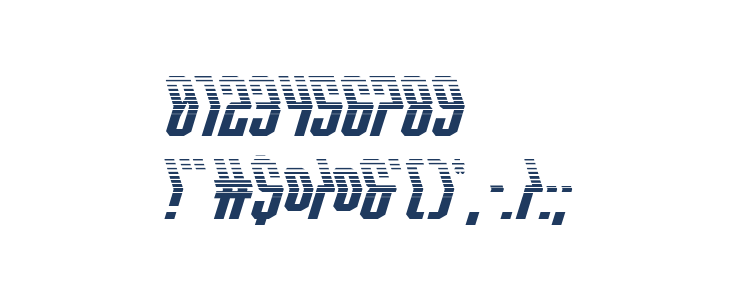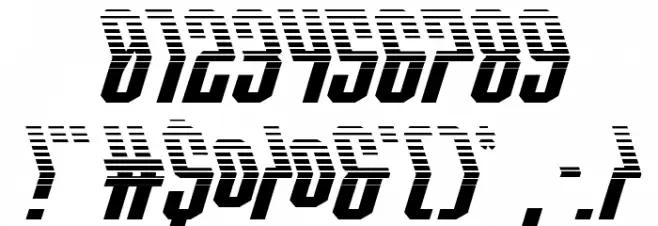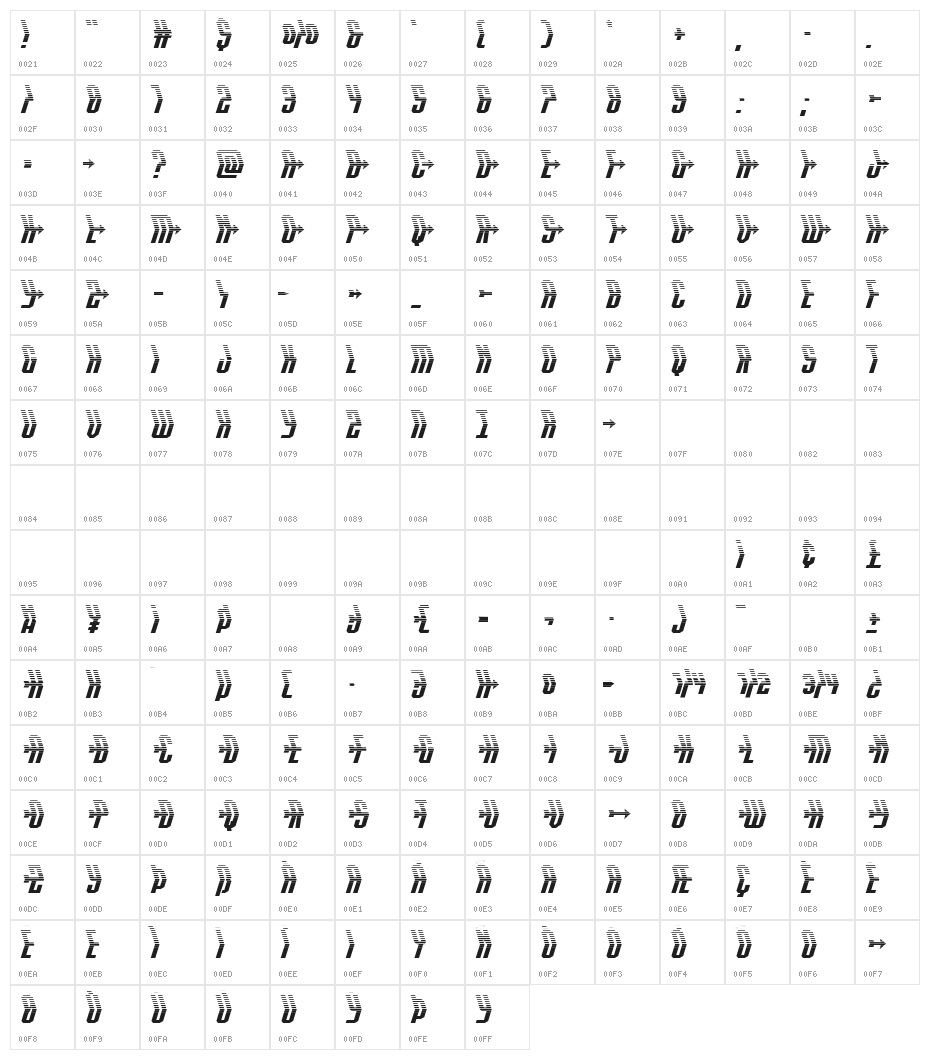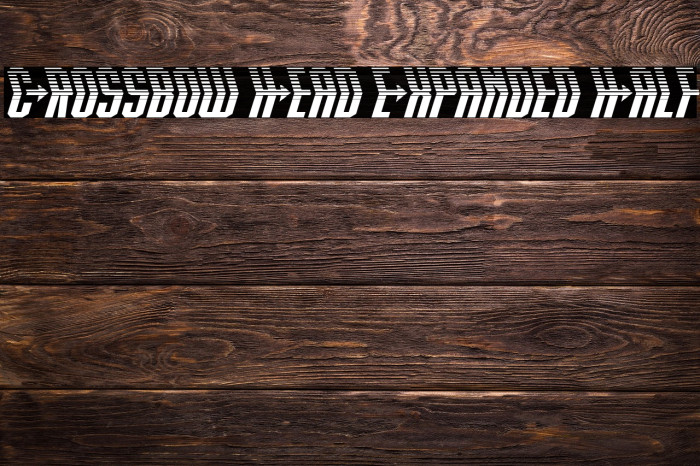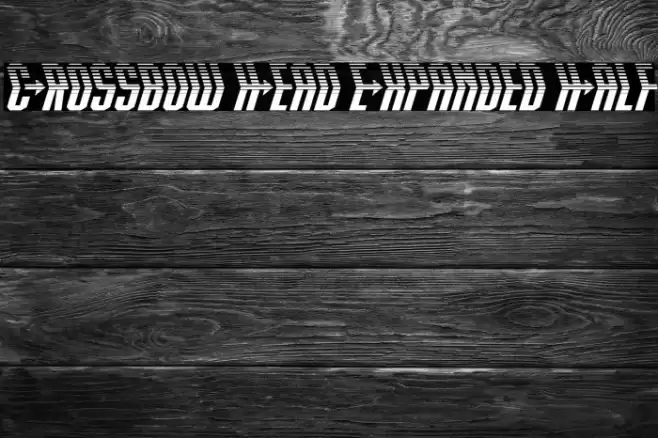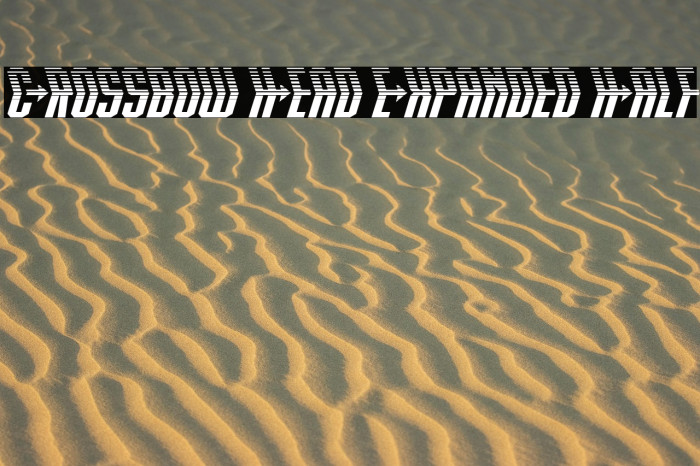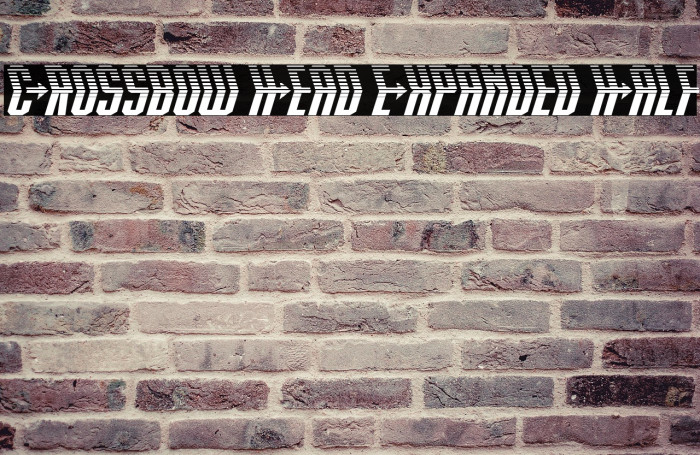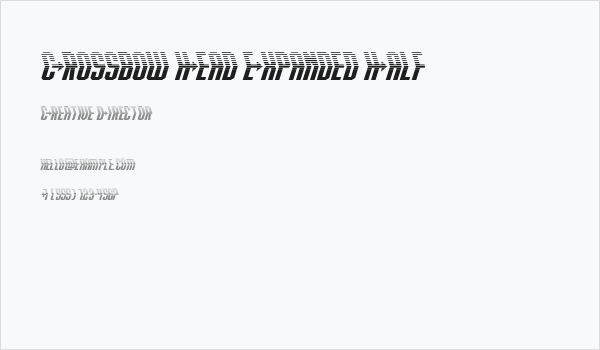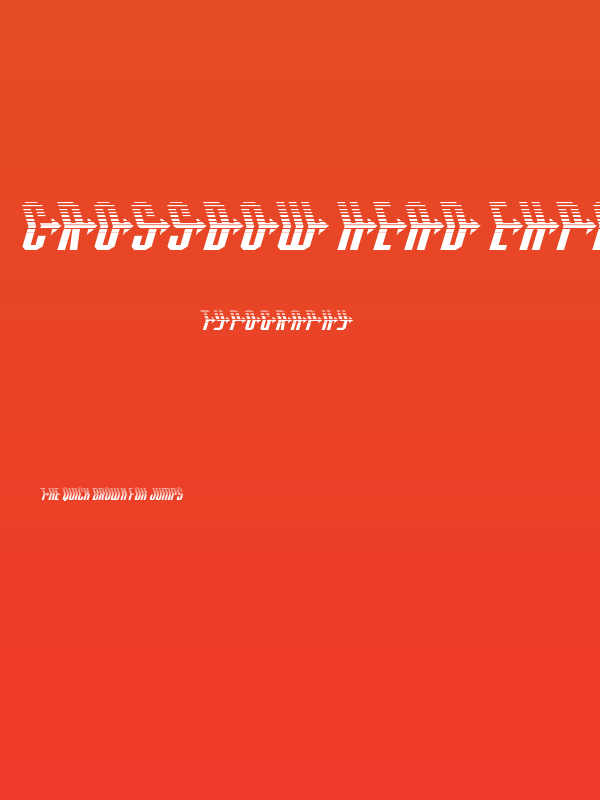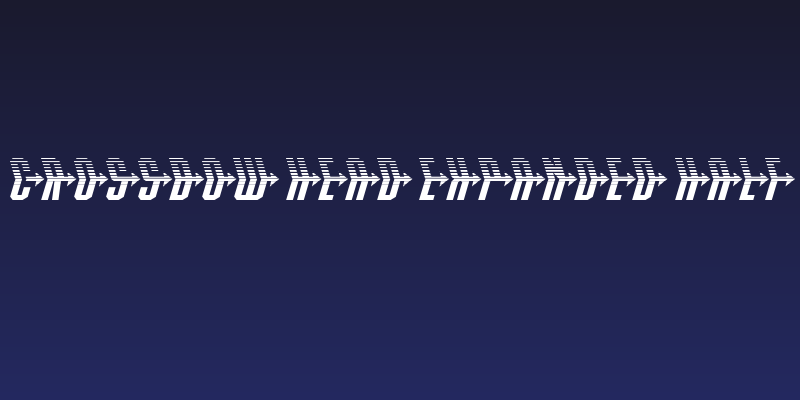
Crossbow Head Expanded Half Font
Crossbow Head Expanded Half Description
This font features a bold and dynamic design with a futuristic and geometric aesthetic. The letters are constructed with a series of horizontal lines that create a sense of movement and speed. The angular shapes and sharp edges give it a modern and edgy appearance, making it stand out in any design. The uppercase and lowercase letters maintain a consistent style, while the numbers and special characters complement the overall look. Its unique style is ideal for projects that require a strong visual impact.
| Proposed Projects | Ideal for sports branding, technology logos, video game titles, and sci-fi themed designs. |